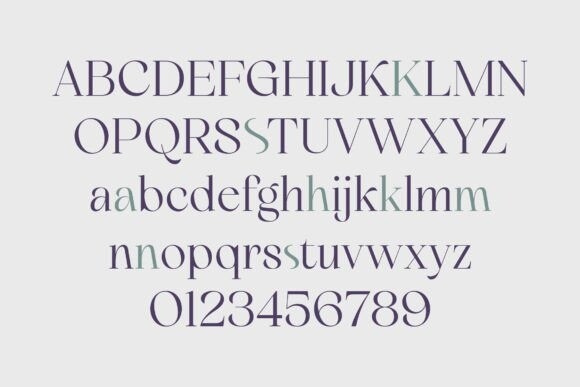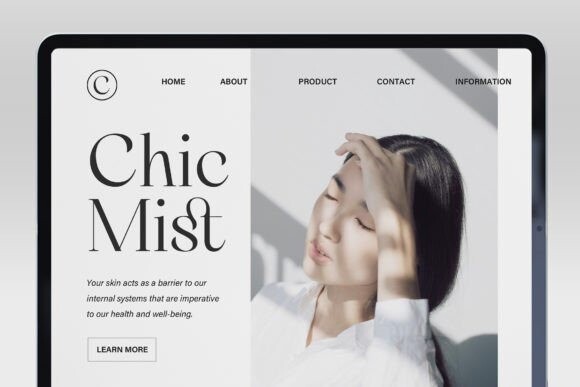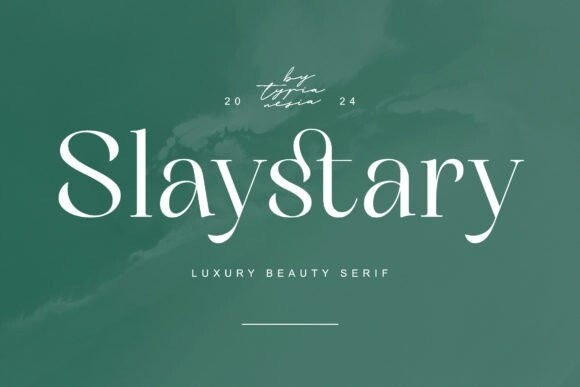
Slaystary Font
Slaystary Font is a modern and elegant serif font that exudes sophistication and charm. With clean lines and subtle curves, it offers a timeless appeal suitable for various design projects. Whether used for editorial layouts, branding, or signage, Slaystary adds a touch of refinement and professionalism to any composition.